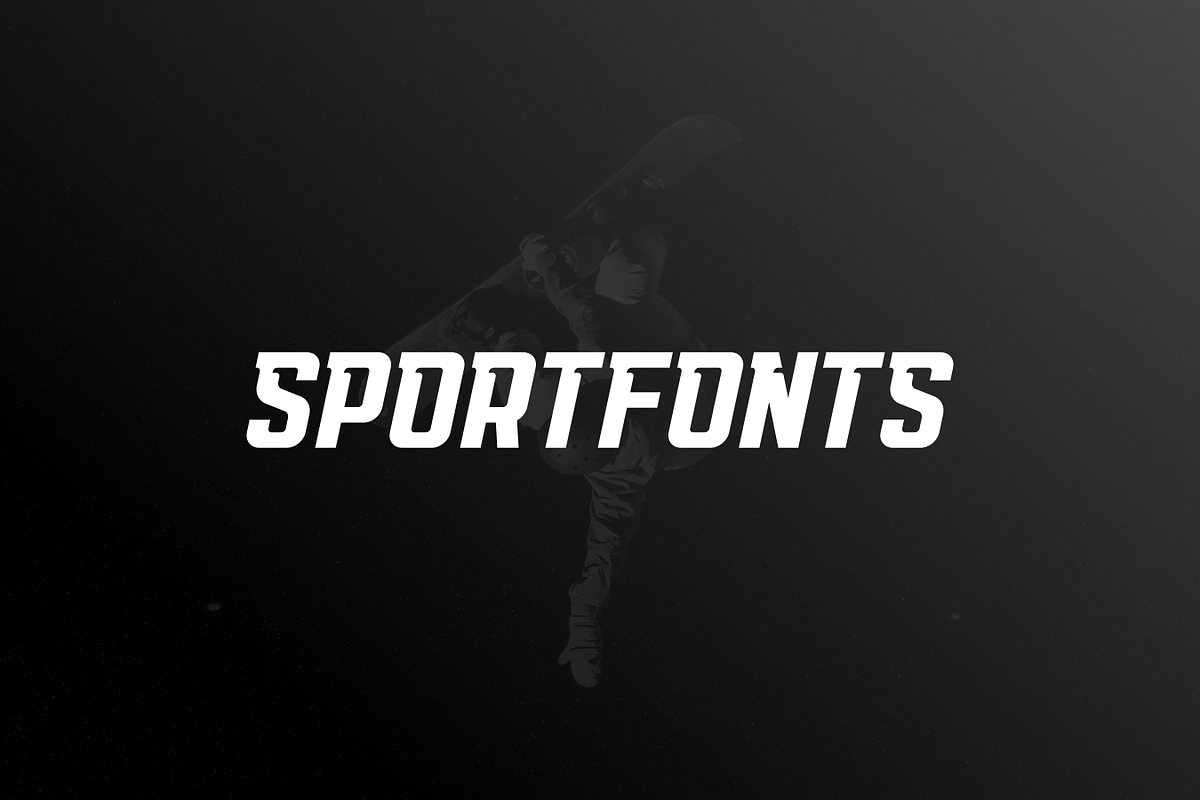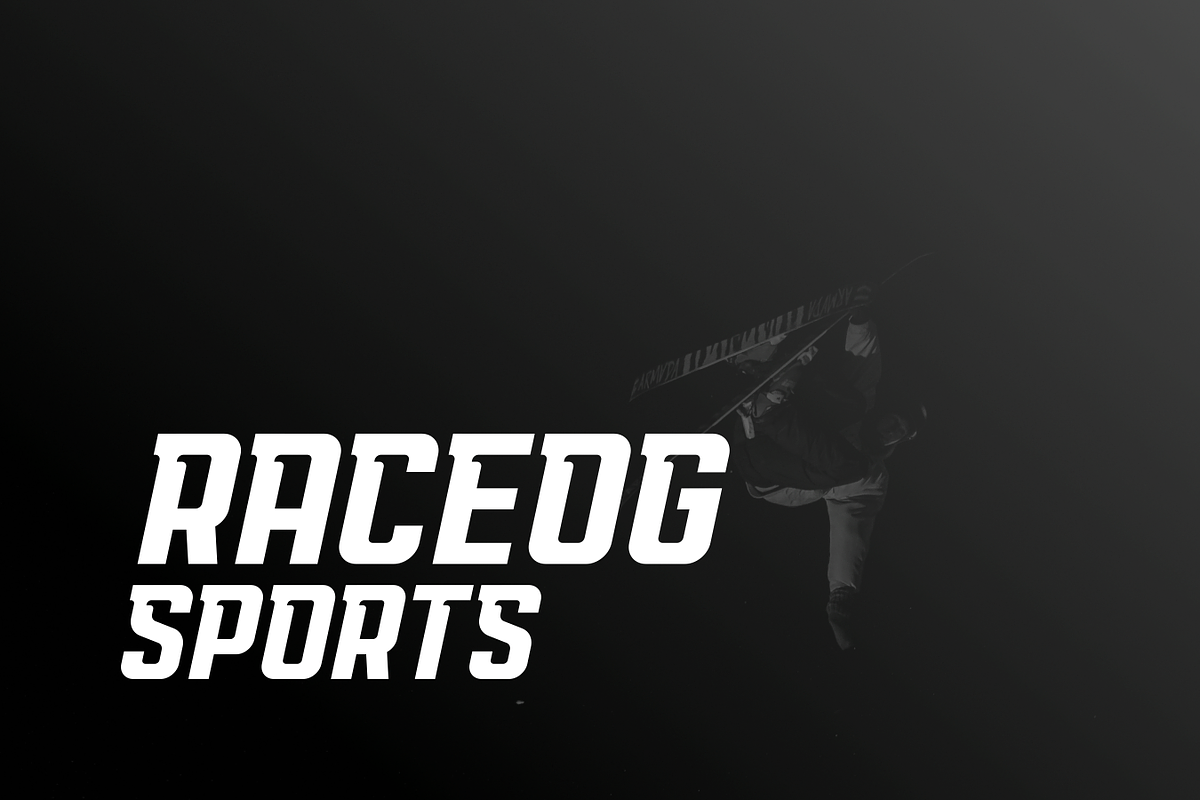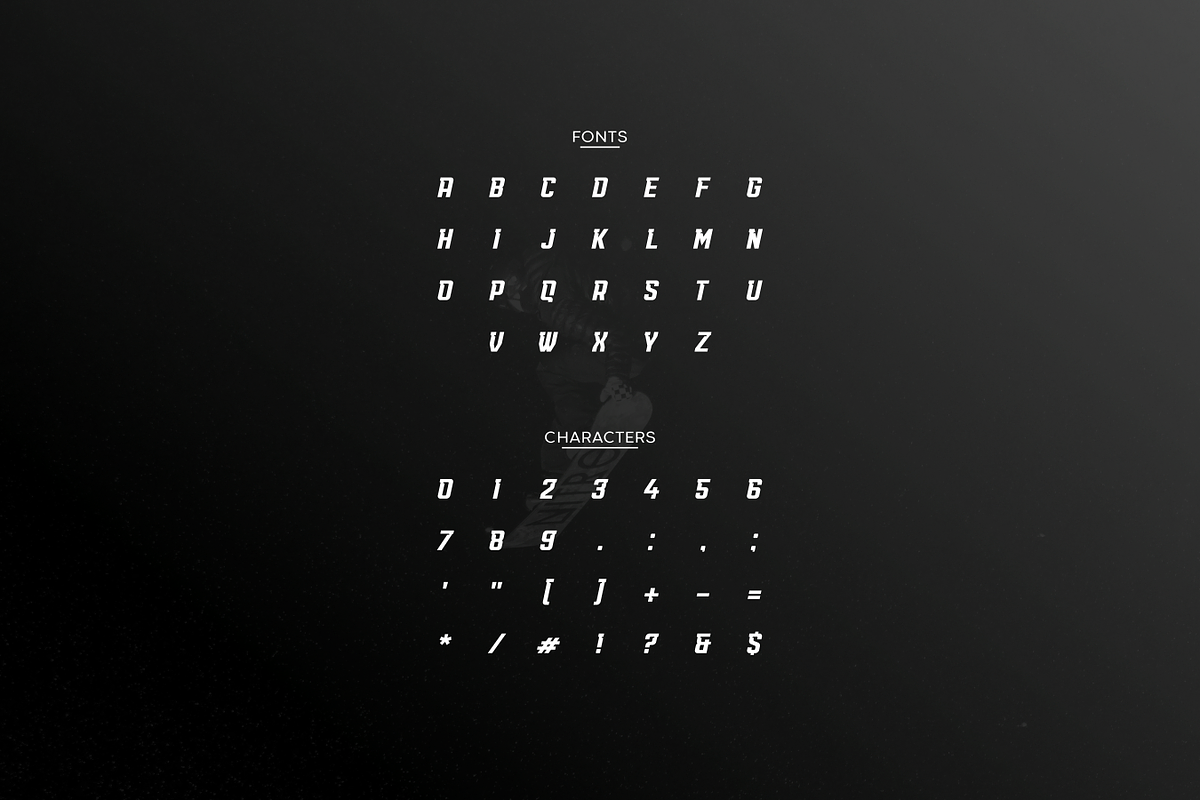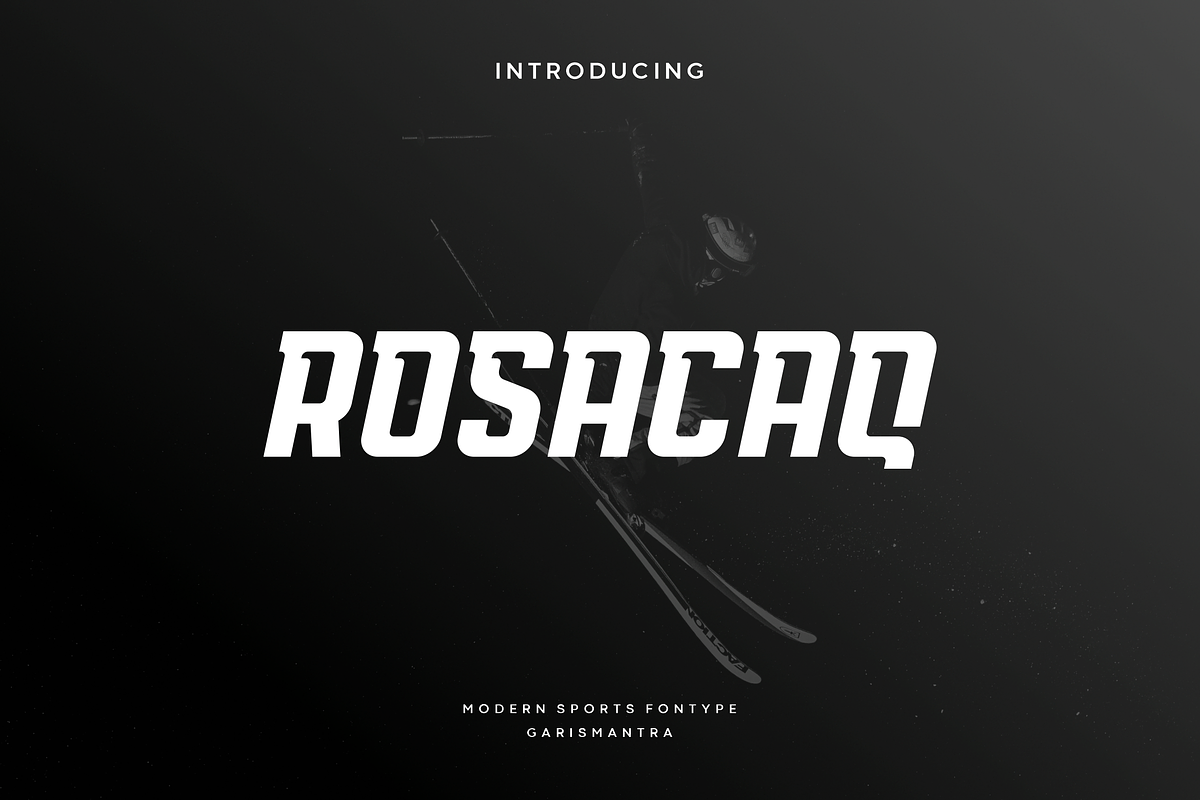
Rosacaq
Rosacaq is an awesome sports font, with a wide italic font style, accented with small modern cutouts at every corner giving it a dynamic slant. Ideal for titles, sports designs, logos, games, automotive, monograms or other modern dynamic text. Rosacaq is better than other sports fonts, comes with a very masculine feel and is sharp giving more of a power and speed effect. Designed as a powerful and dynamic font with slightly different font styles, take a look and grab it right away for a different design experience.